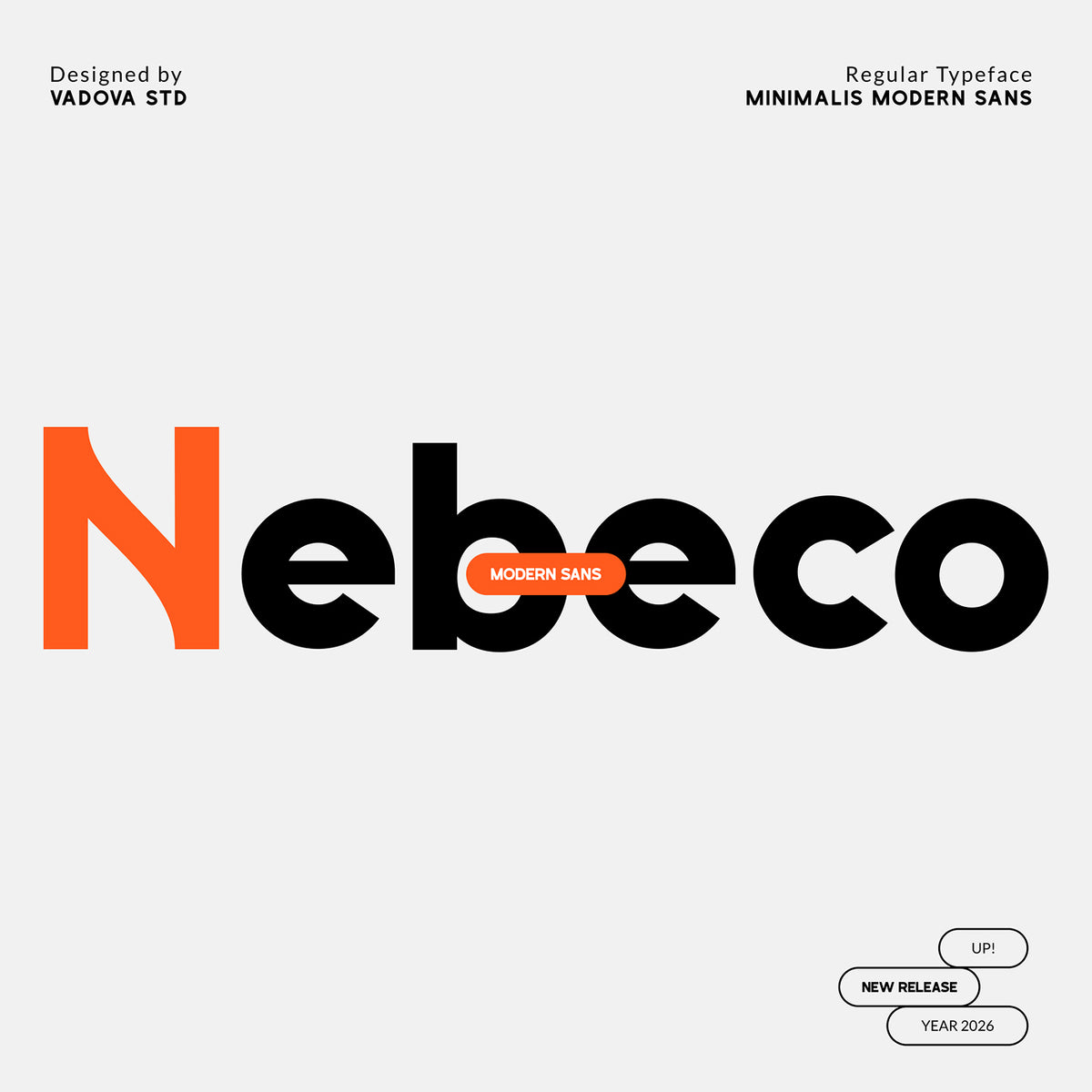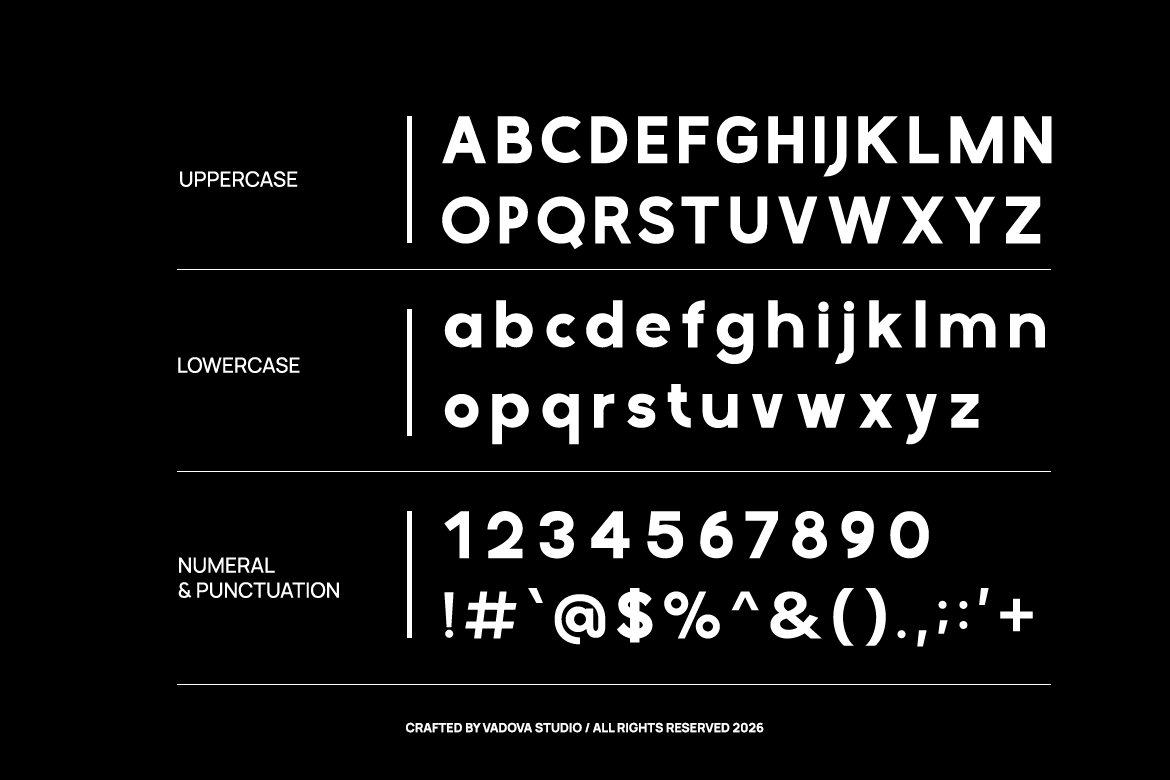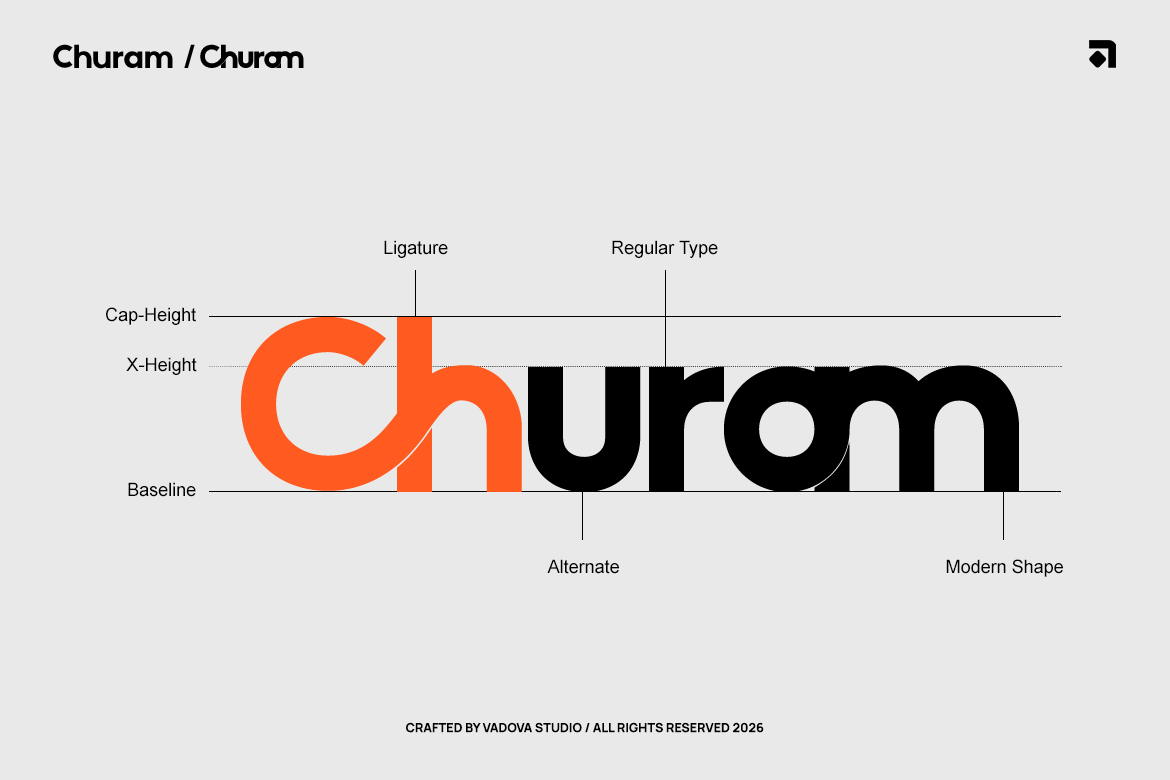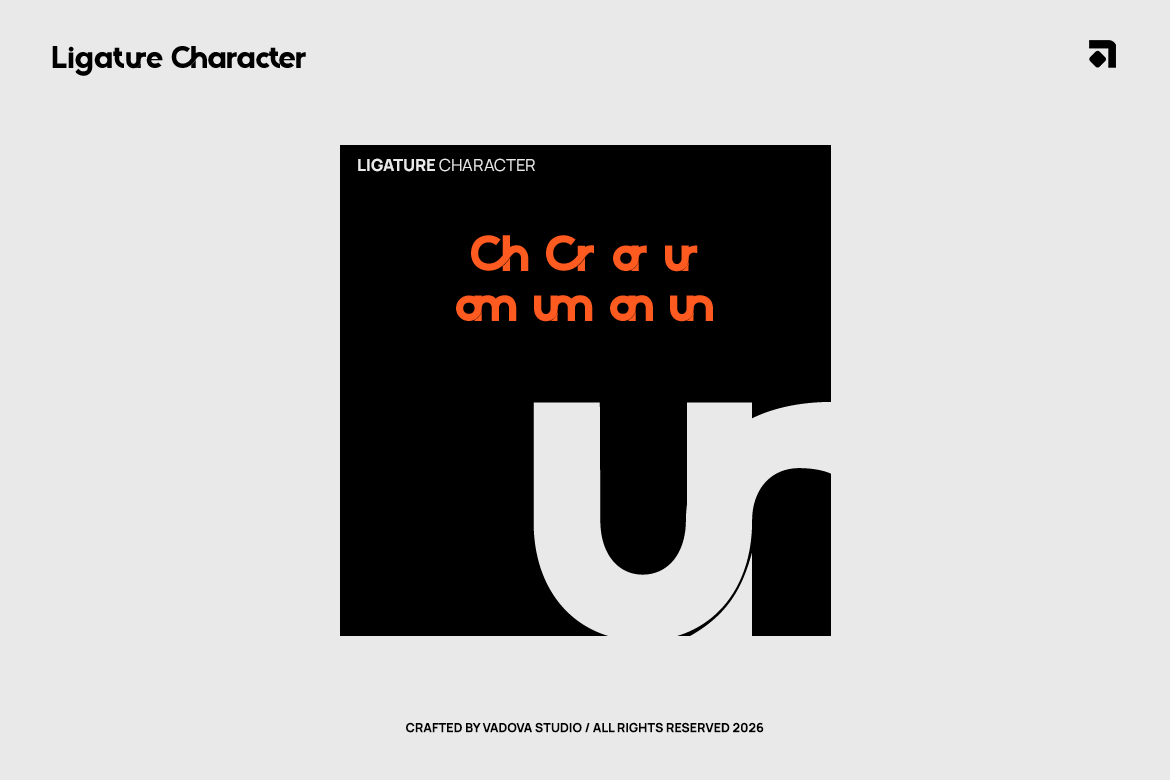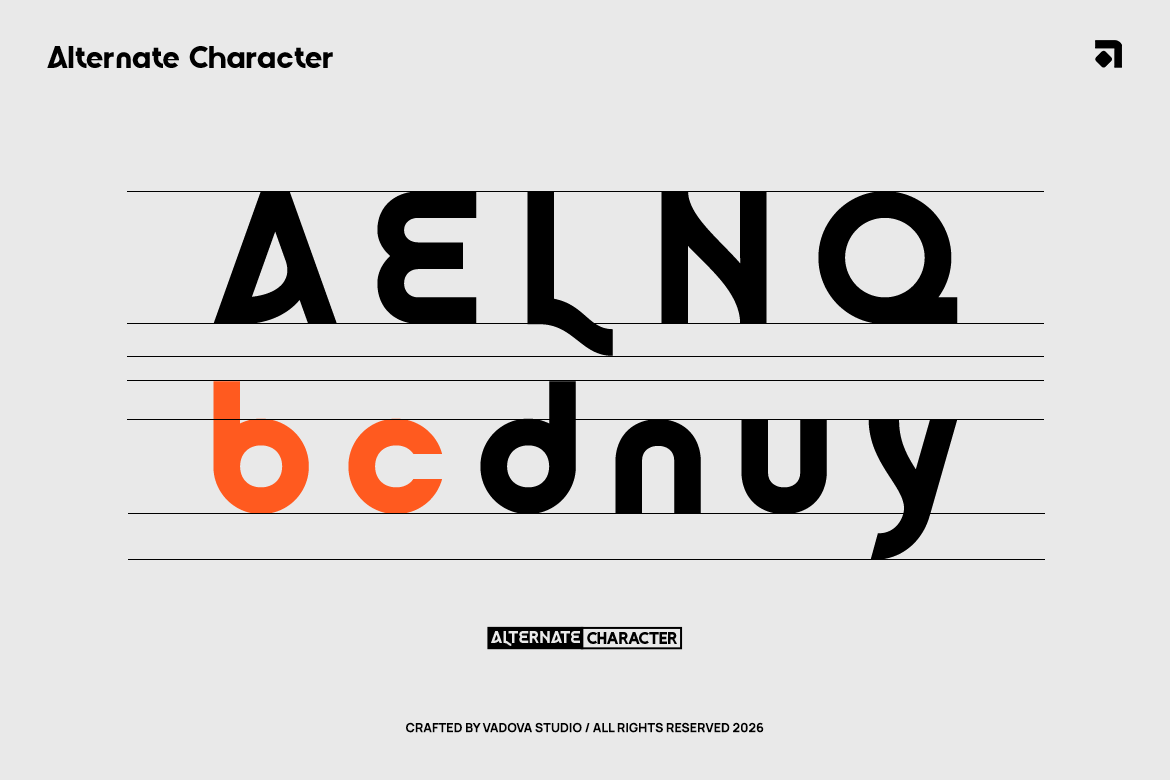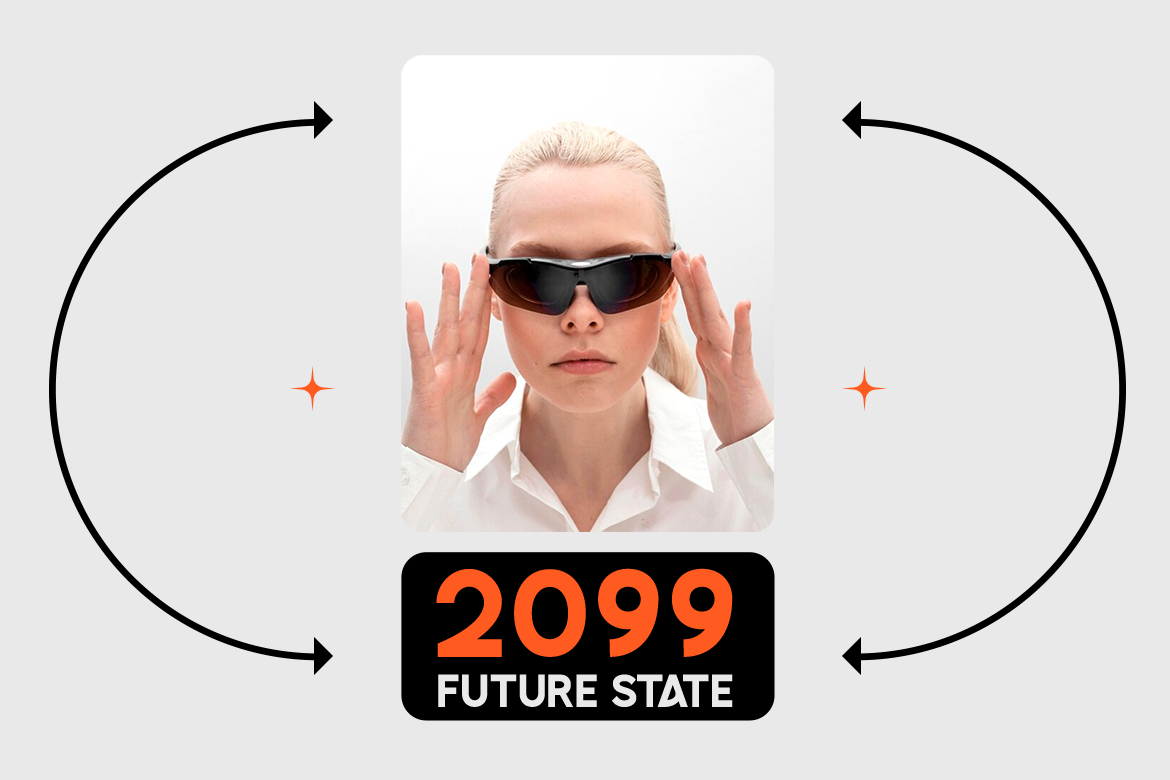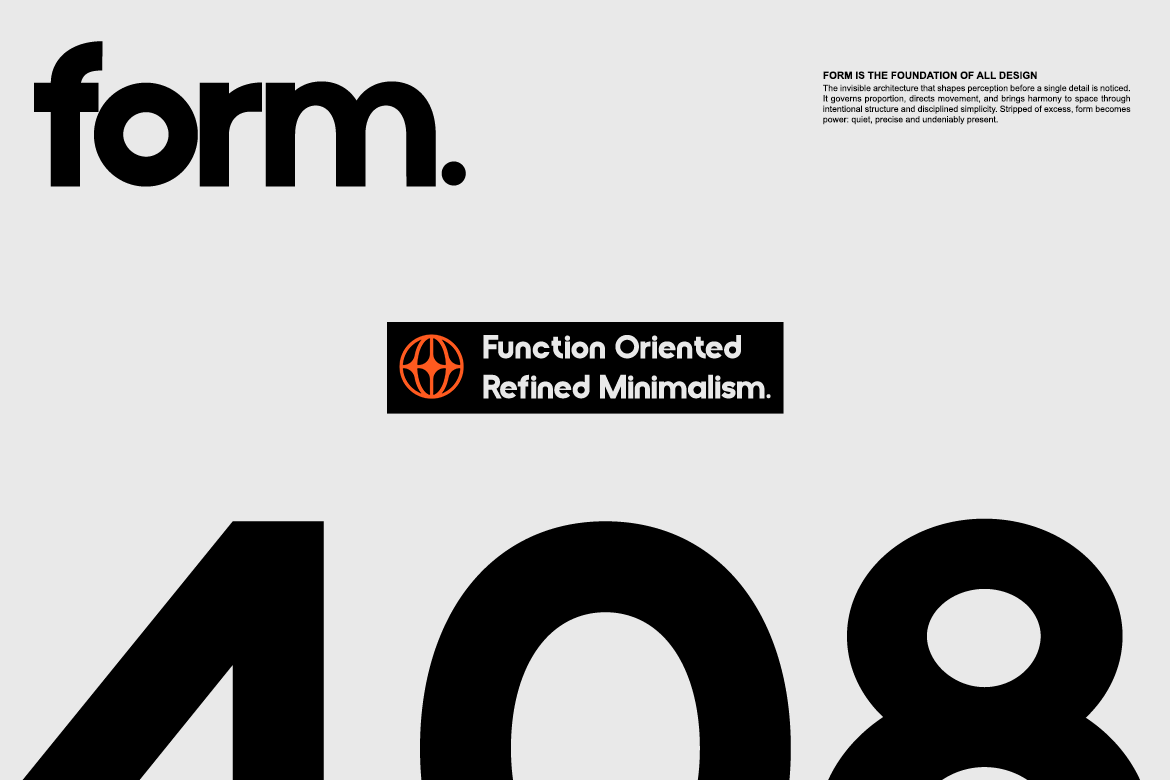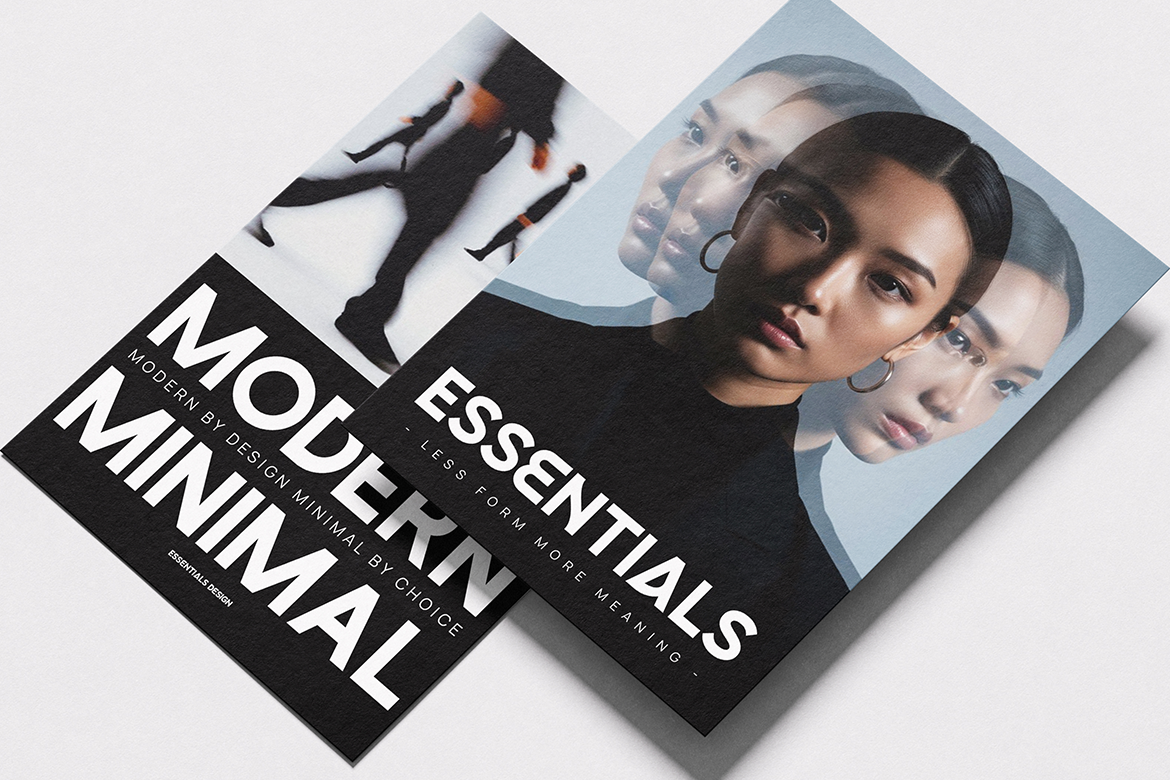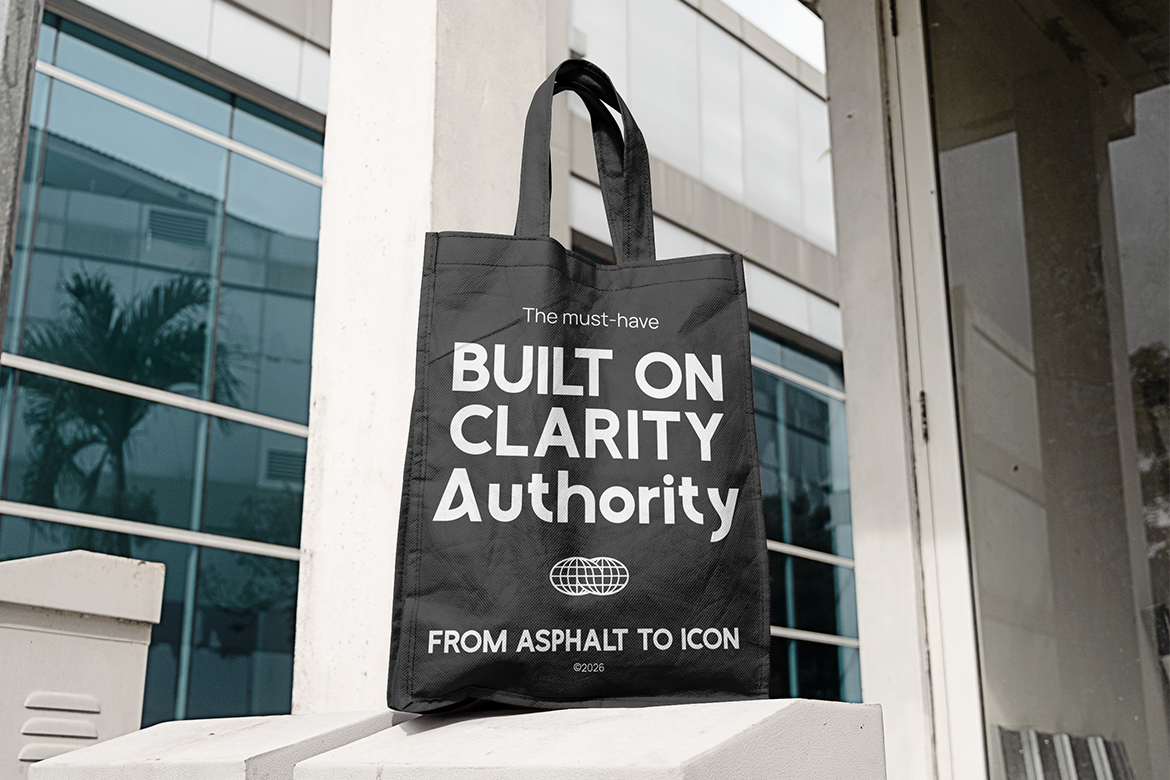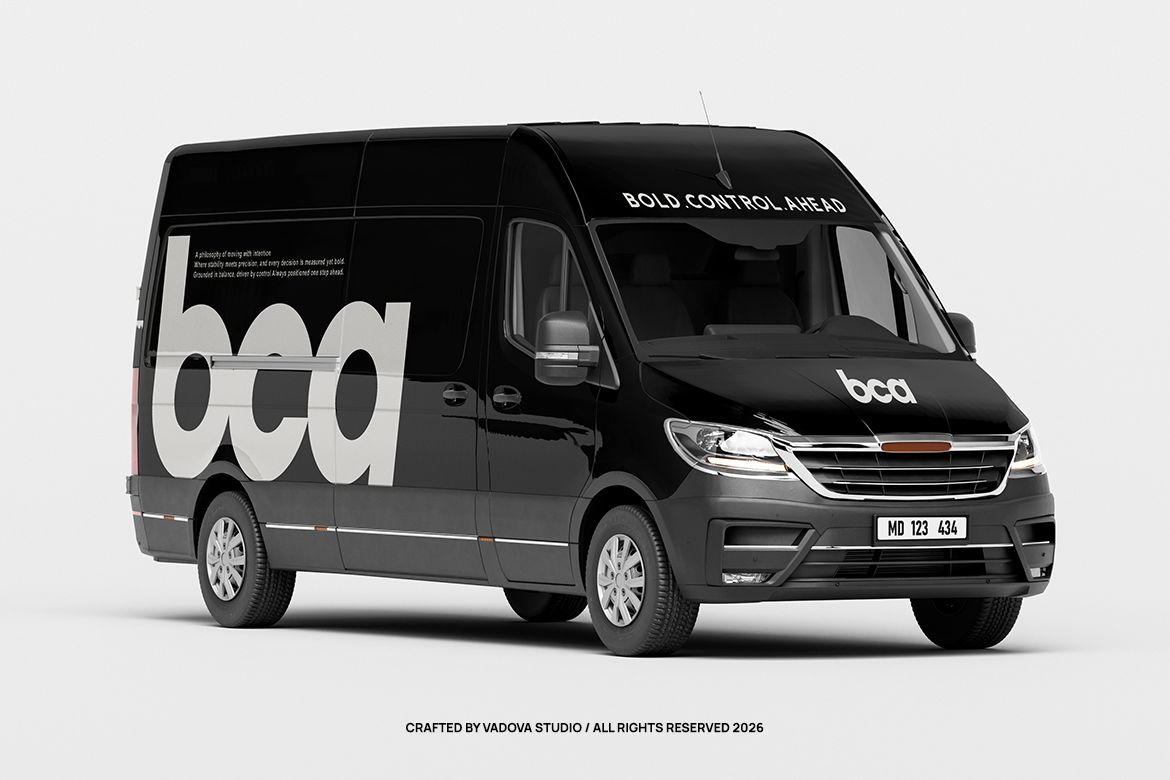
Nebeco Minimalist Modern Sans Serif Font
Nebeco Minimalist Modern Sans Font is a bold contemporary typeface that combines geometric construction with soft rounded forms and distinctive character detailing. Featuring thick monoline strokes, circular counters, and a uniquely sculpted uppercase, the typeface delivers a strong visual identity that feels modern, friendly, and confidently minimal. The balanced proportions and simplified letterforms create a clean typographic rhythm that performs exceptionally well in large headlines and impactful branding applications.
Designed with carefully crafted glyphs and contemporary aesthetics, Nebeco includes uppercase and lowercase characters, numerals, punctuation, symbols, and OpenType features for versatile design usage. Its heavy weight and rounded geometry provide excellent readability while maintaining a stylish and approachable personality, making it suitable for modern branding systems, technology products, creative campaigns, packaging, editorial headlines, social media graphics, and digital interfaces seeking a bold yet minimal typographic presence.
Standard Ligatures & Alternate
Nebeco Minimalist Modern Sans Serif Font is a bold geometric typeface with rounded forms, thick monoline strokes, and a sculpted uppercase design. It includes uppercase and lowercase characters, numerals, punctuation, standard ligatures and alternates, and is available in OTF, TTF, and WOFF formats.